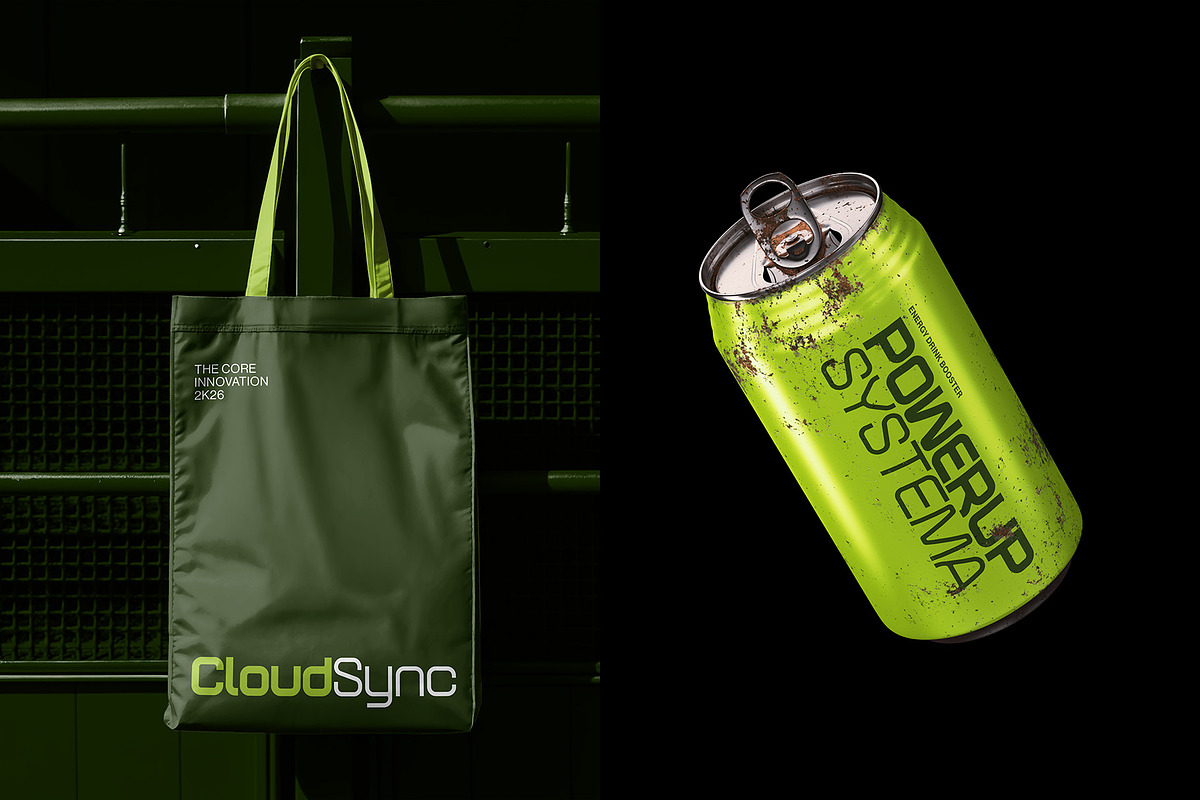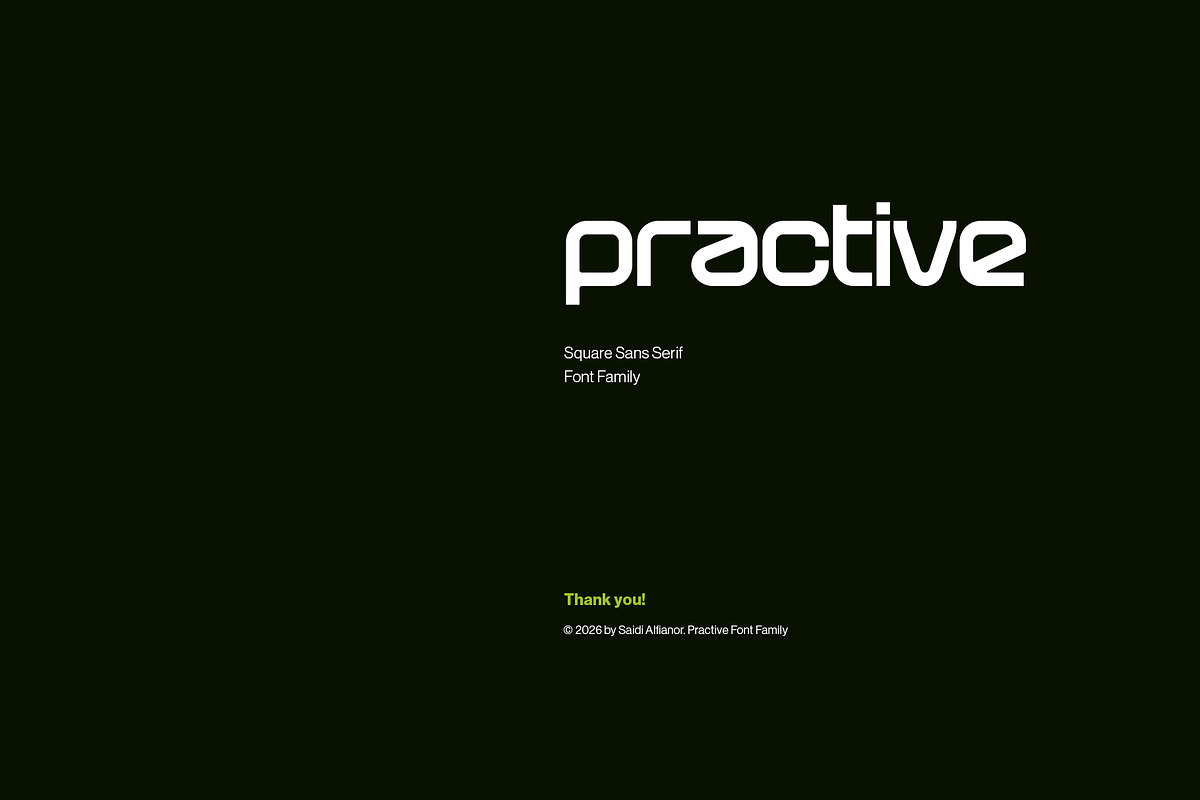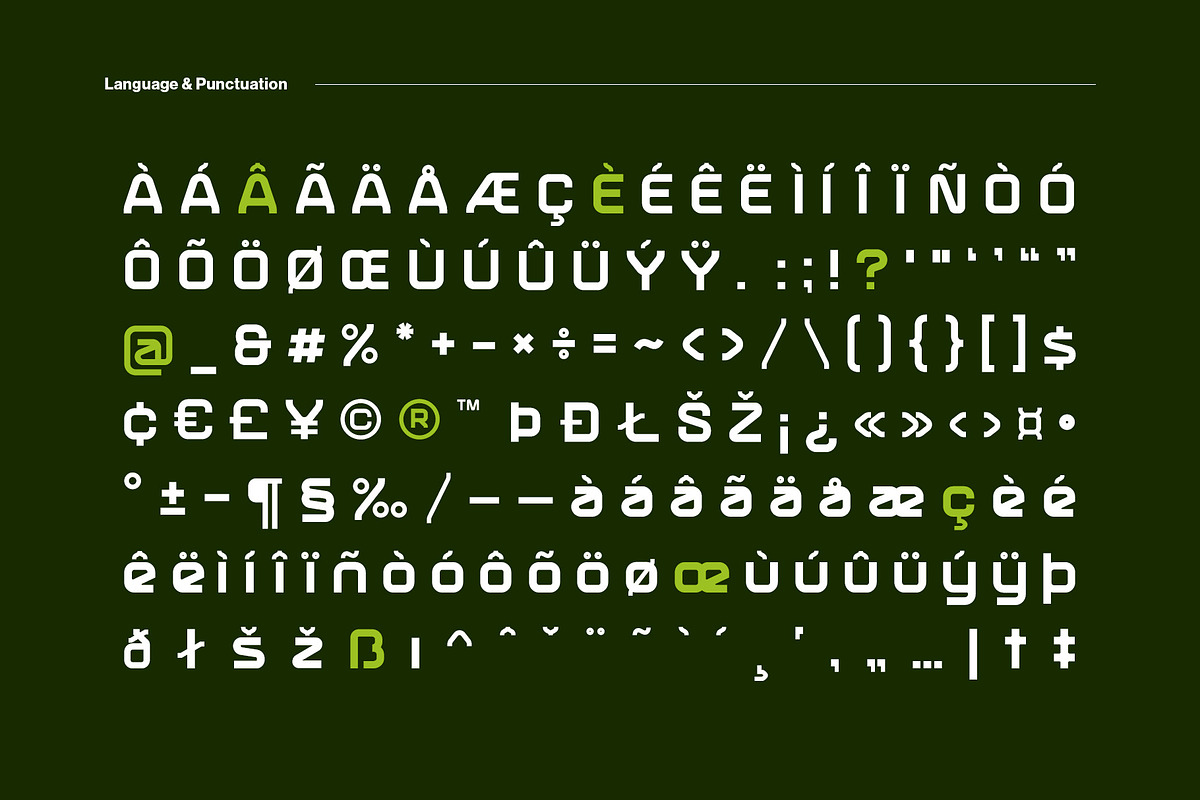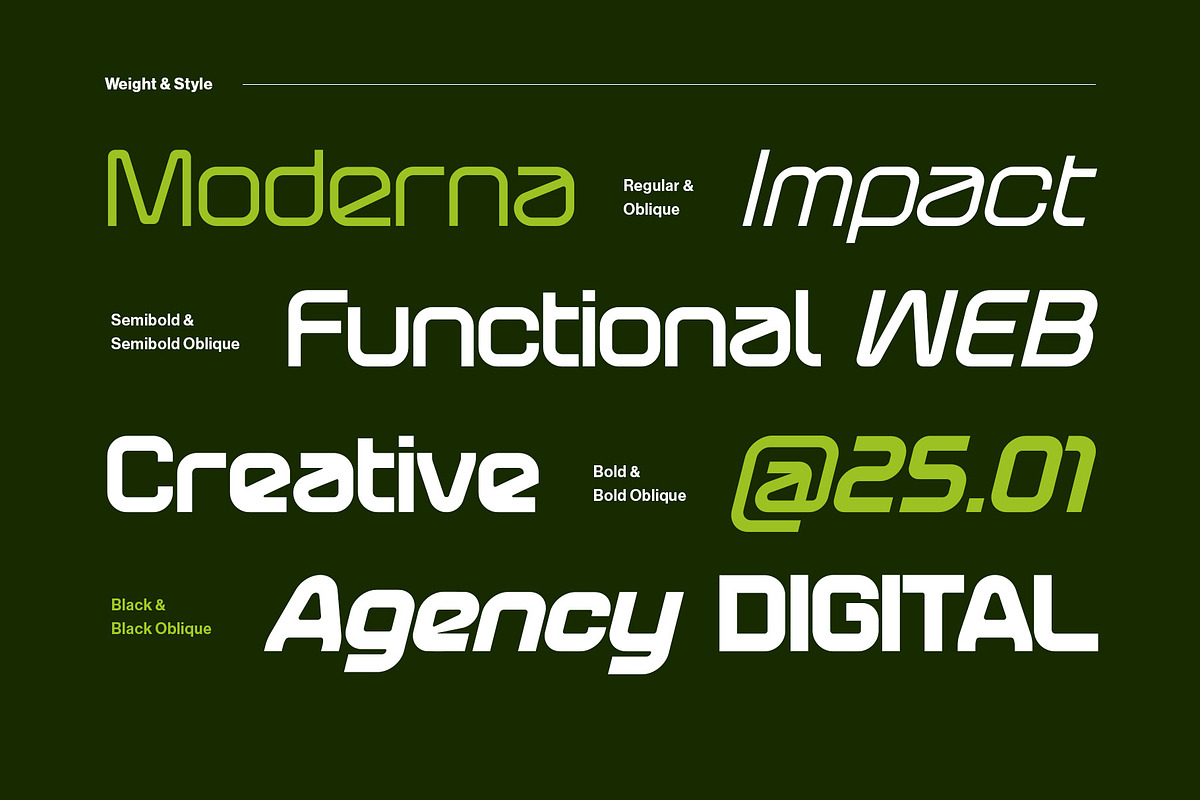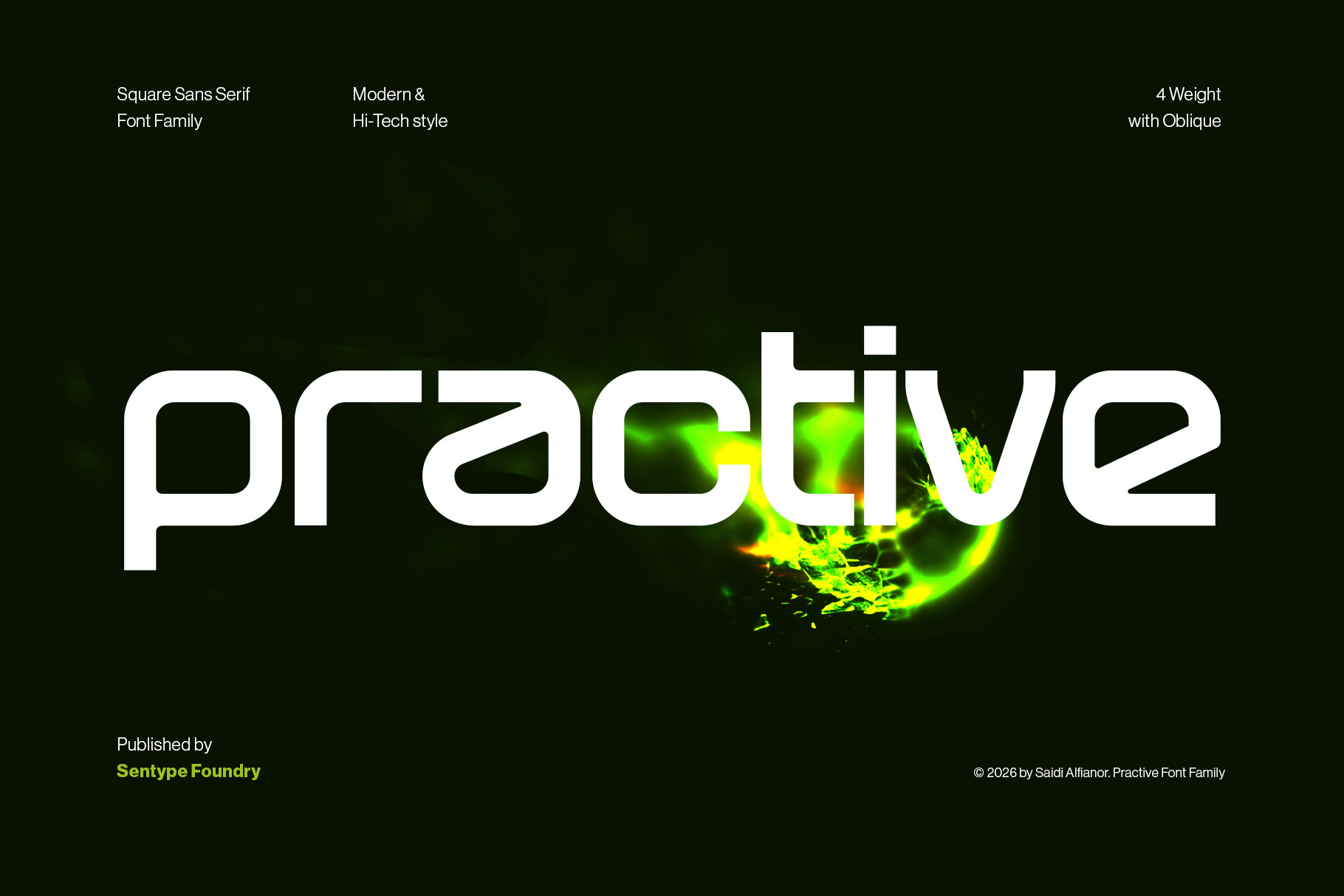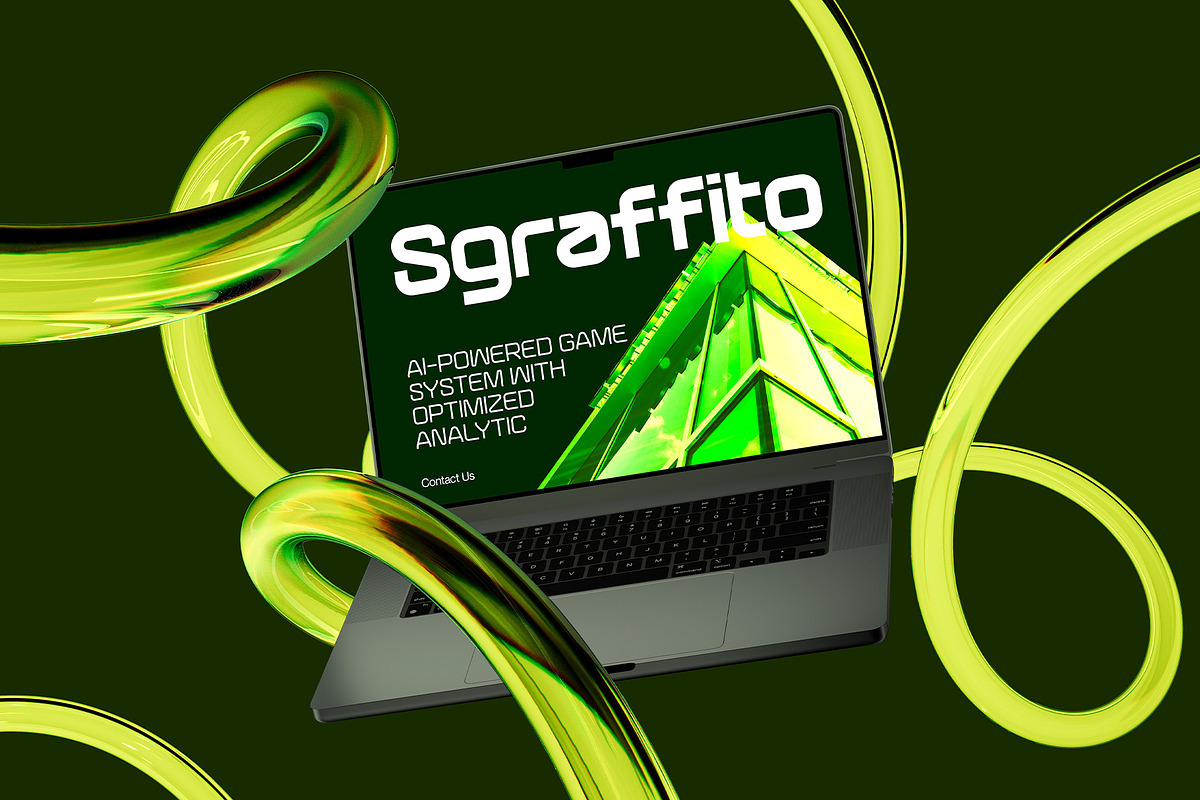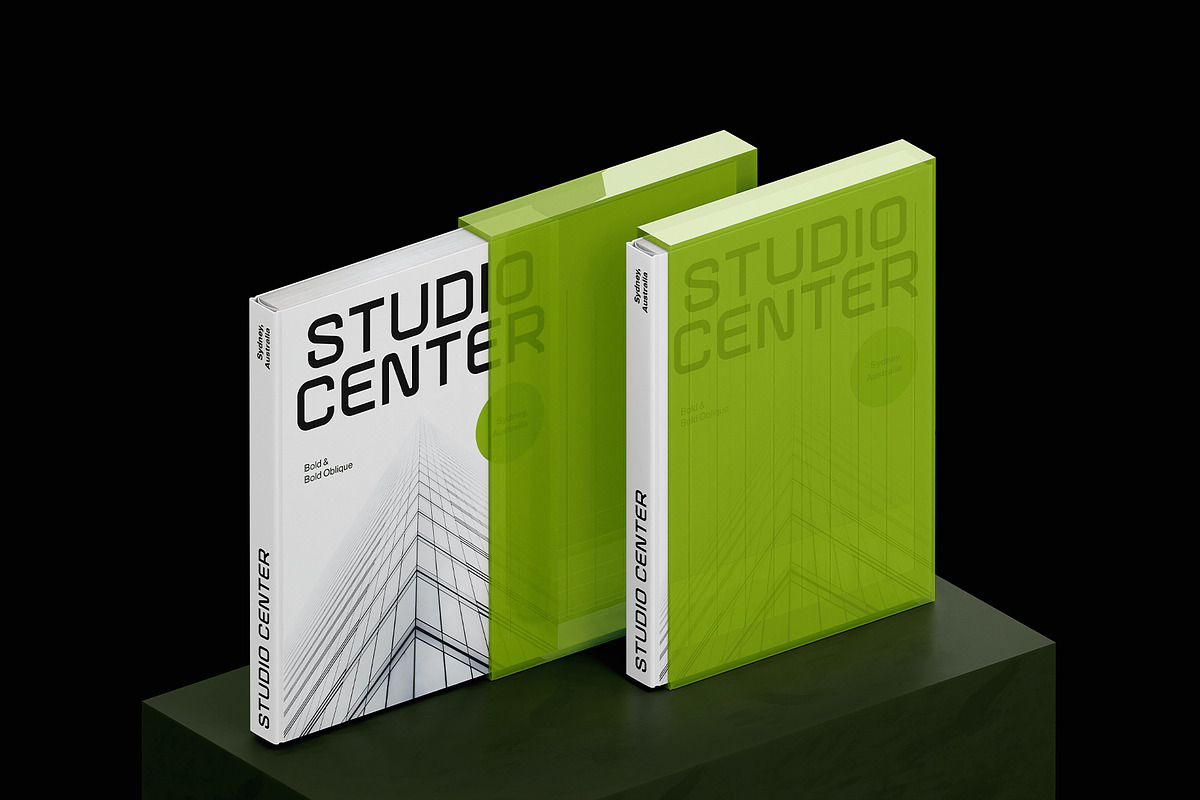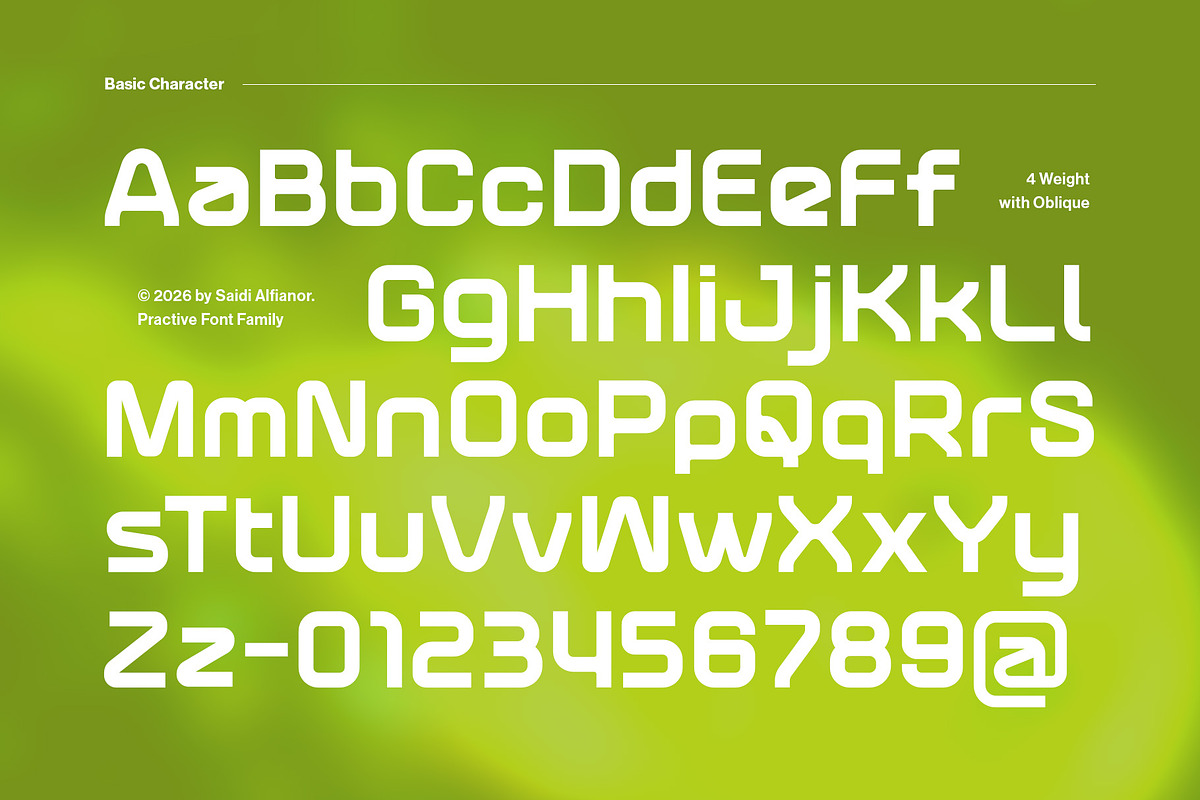
Practive Font Family
Introducing Practive, a modern square font family engineered with a hi-tech, industrial edge to elevate your creative projects. This comprehensive collection features four distinct weights with matching obliques, providing a total of eight versatile styles for ultimate typographic flexibility. Crafted with precise, blocky lines and a solid architectural structure, its futuristic aesthetic is perfectly suited for tech branding, gaming, and cutting-edge product design. The highly legible geometric character shapes ensure a commanding presence and sharp readability across both digital user interfaces and high-impact layouts. Add the complete Practive family to your digital toolkit today and bring a sleek, powerful vibe to your visual storytelling.